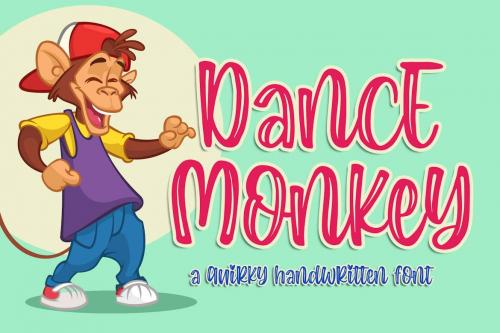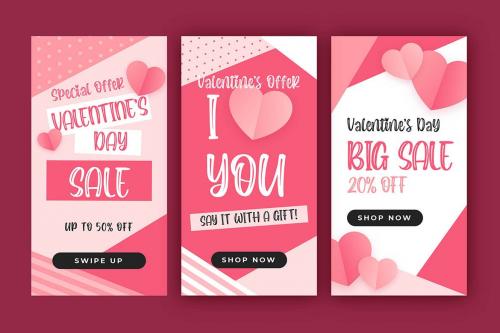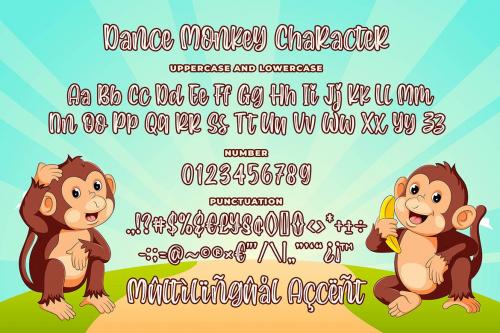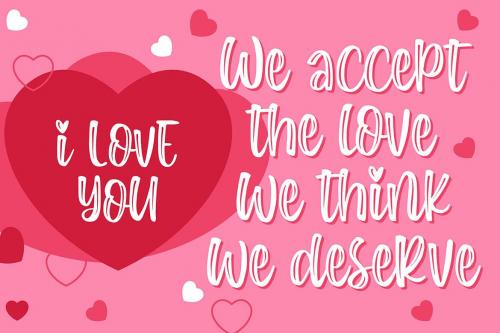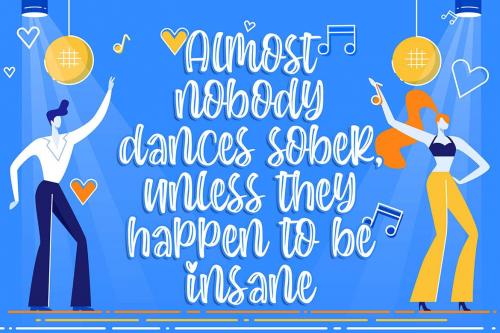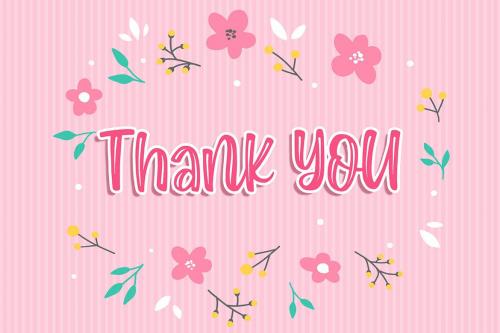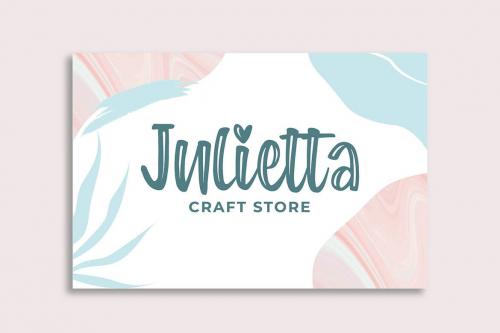
猴子舞 quirky 字体
Dance Monkey a Quirky Font
Introducing of our new product the name is Dance Monkey a Quirky Font. Dance Monkey inspired by modern calligraphy this font is a fun theme very good for craft, food logo, food menu, wedding invitation, logotype and etc
**MULTILINGUAL ACCENT :**